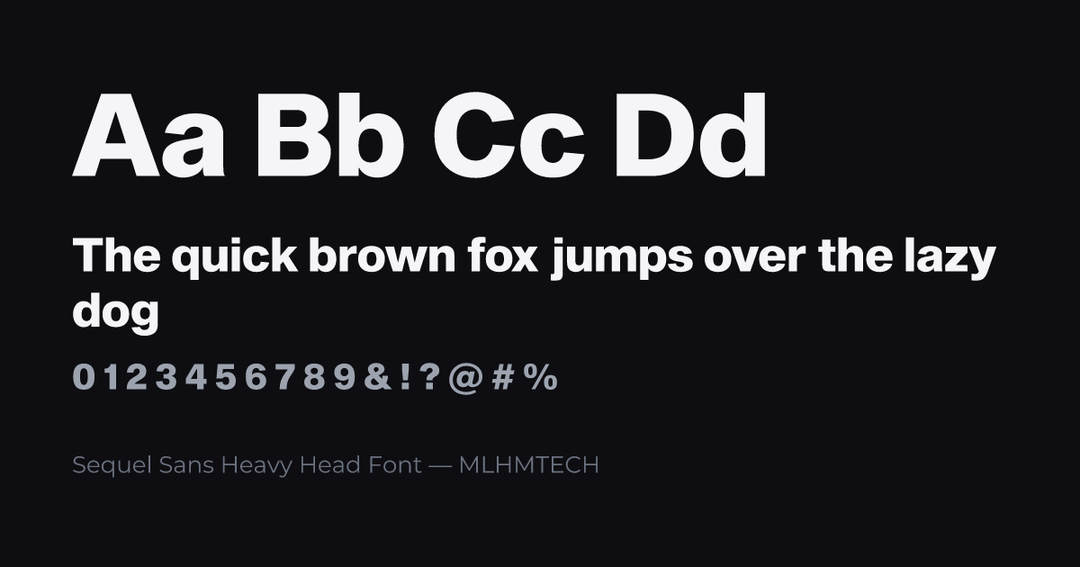
Sequel Sans Heavy Head Font
Sequel Sans Heavy Head is a bold, geometric sans-serif font ideal for impactful headlines and titles. Its clean lines and heavy weight make it perfect for modern video edits and graphic designs.
Sequel Sans Heavy Head is a high-contrast, geometric sans-serif font that commands attention. Its heavy weight and clean, modern letterforms are perfect for creating striking headlines, titles, and logos. Whether you're working on a video intro, a poster, or a branding project, this font adds a touch of sophistication and strength.